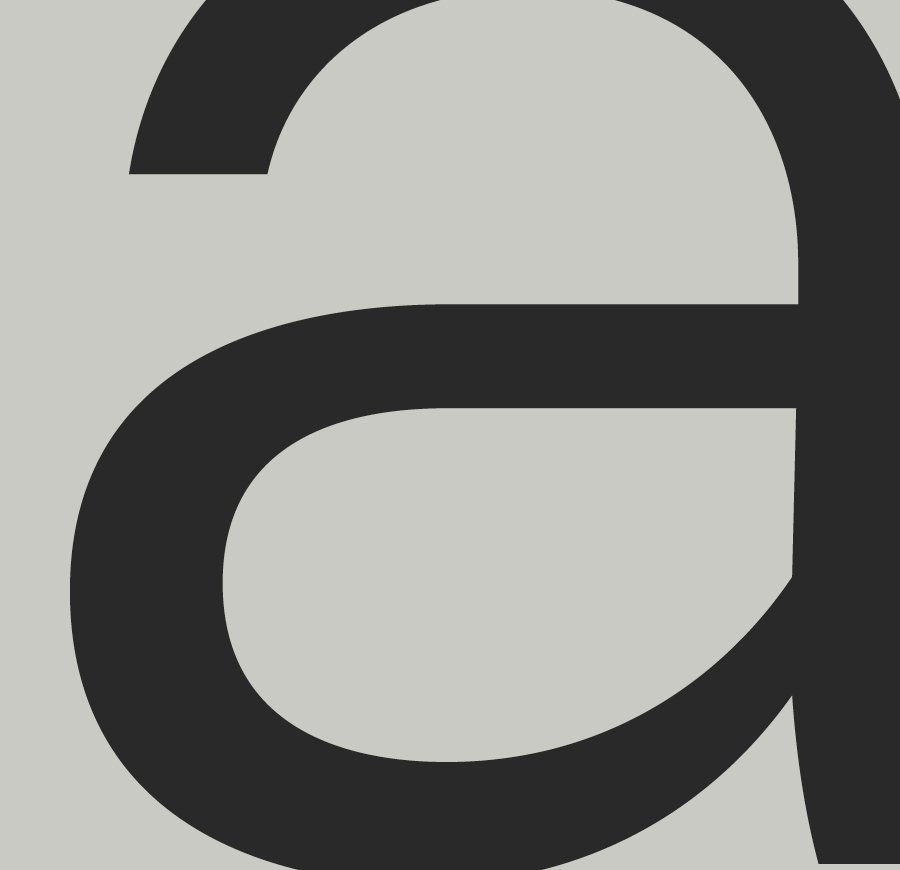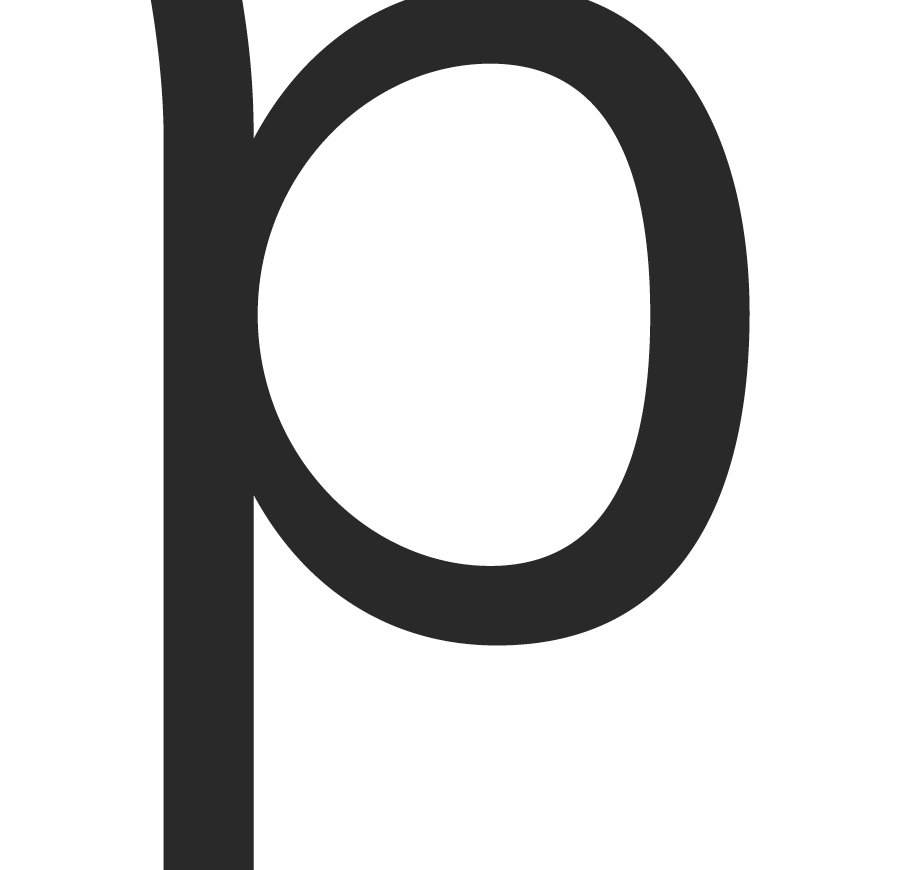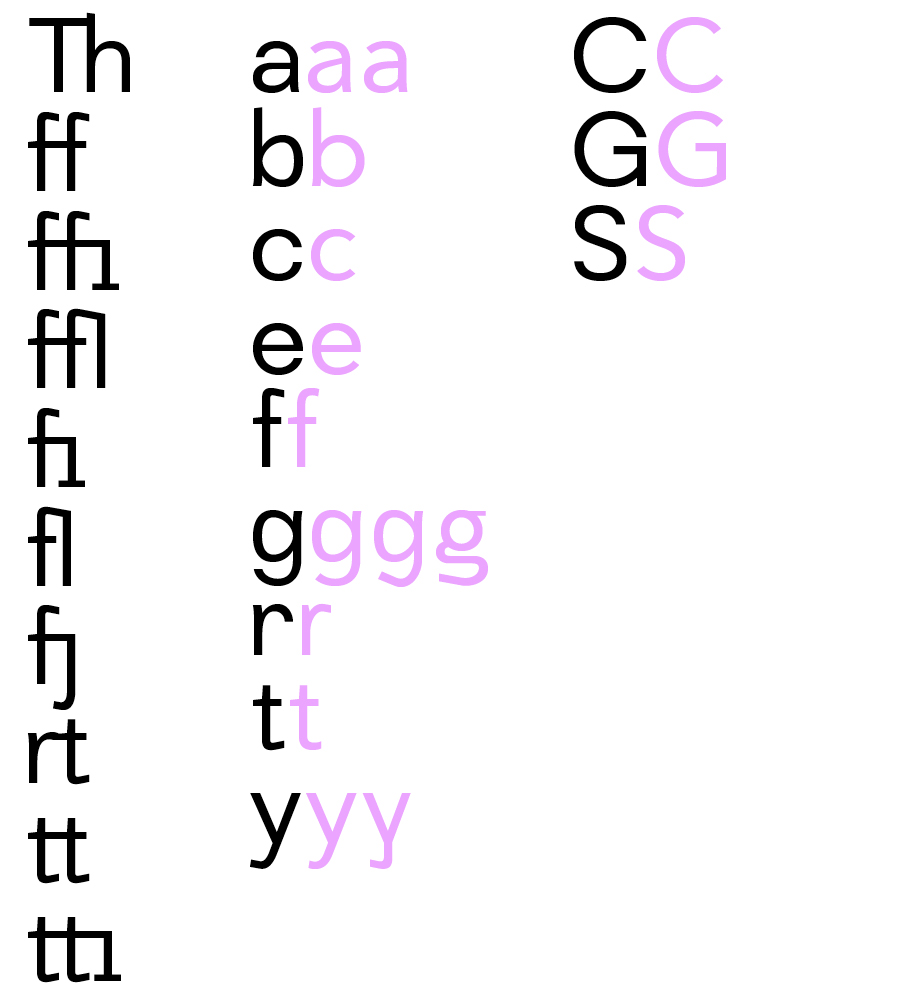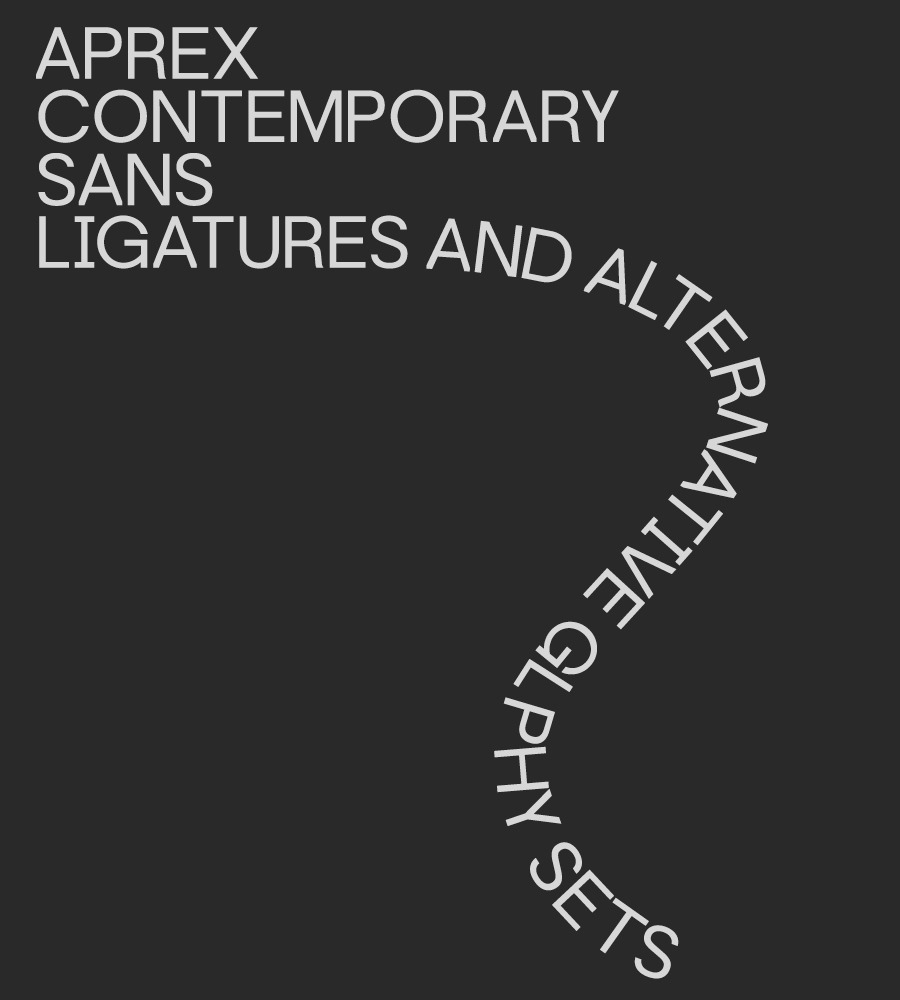
Sf Aprex Sans
Aprex Sans perfectly balances the minimalist quality associated with contemporary sans with flair within the width of the counters and comfortable, breathable apertures. — Throughout weights and sizes, the typeface has great legibility and good contrast between positive and negative space, making it stunningly versatile. — With a seamless combination of contemporary details and classic styles, Aprex Sans draws inspiration from the mid-century humanist and grotesque typefaces, and its solid and straightforward structure is characterized by angular connections between curves and stems.